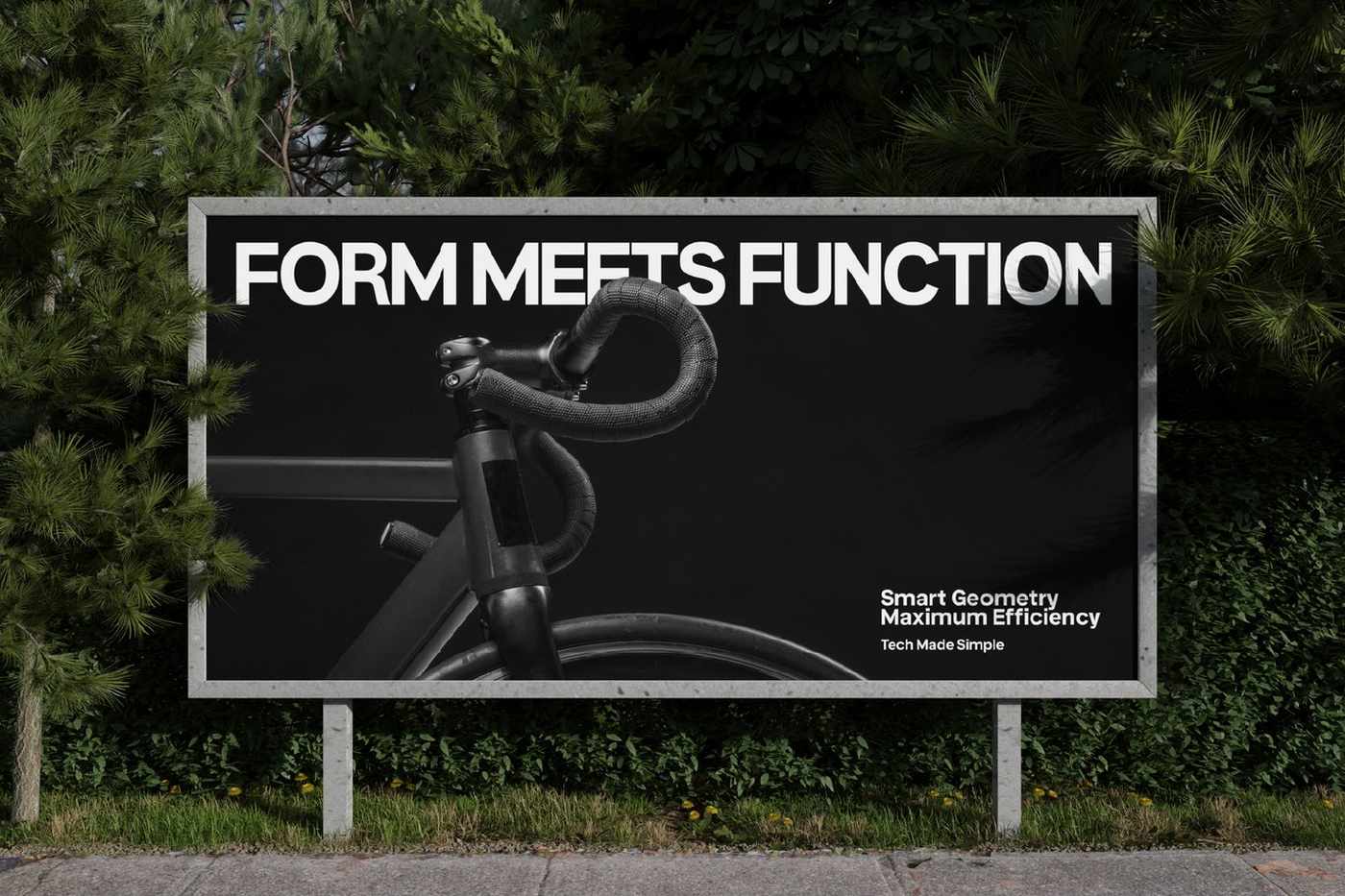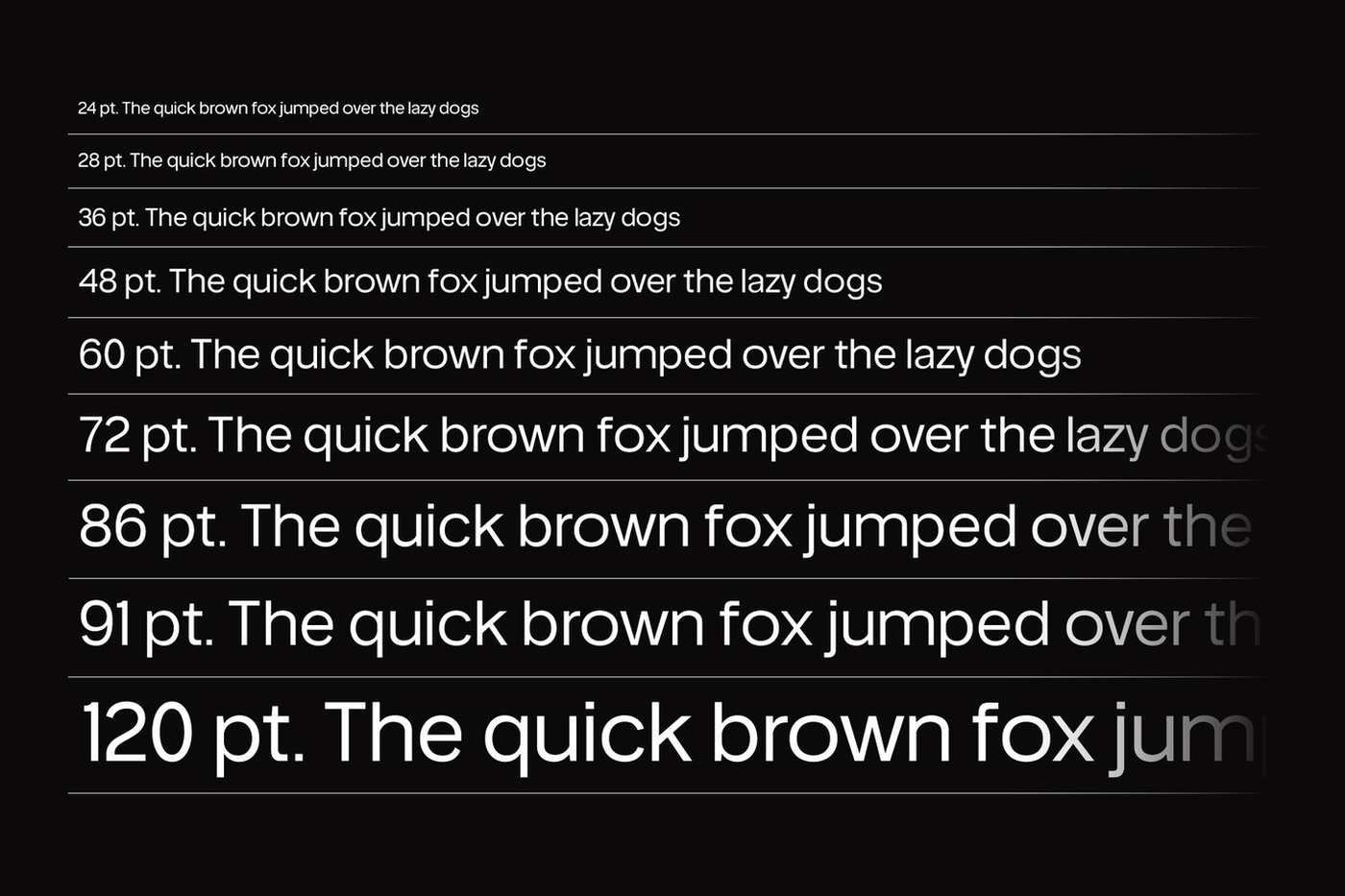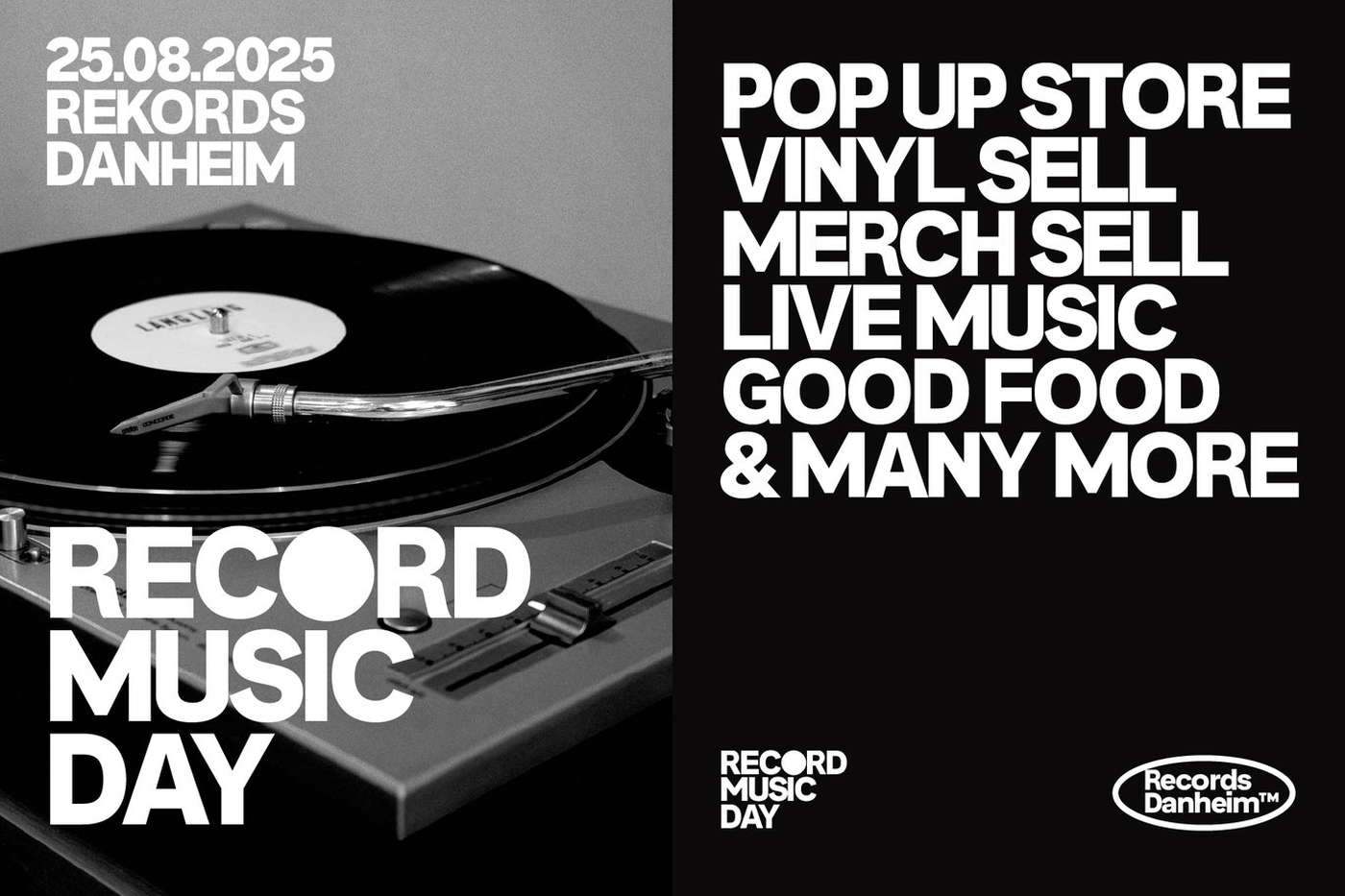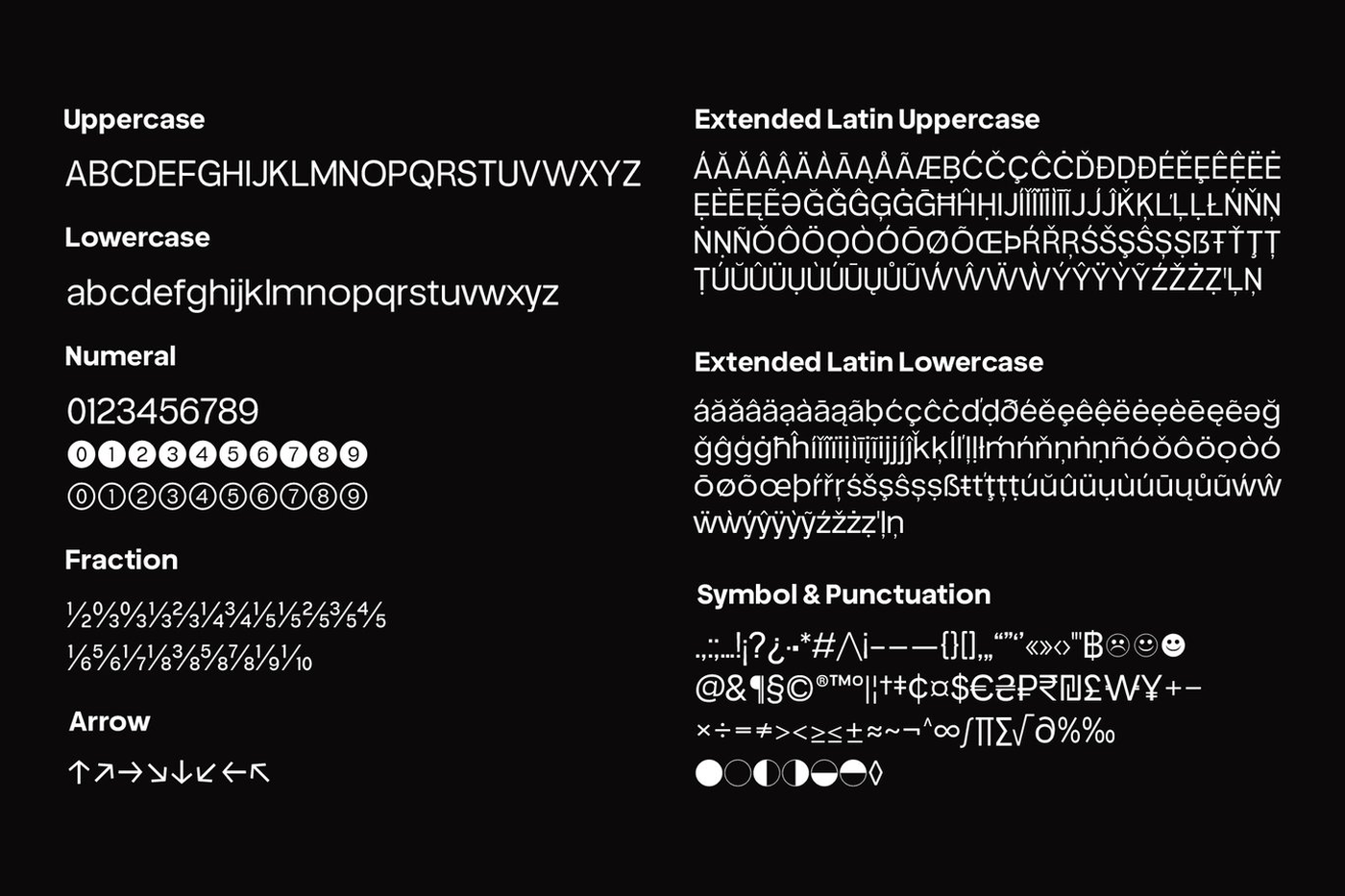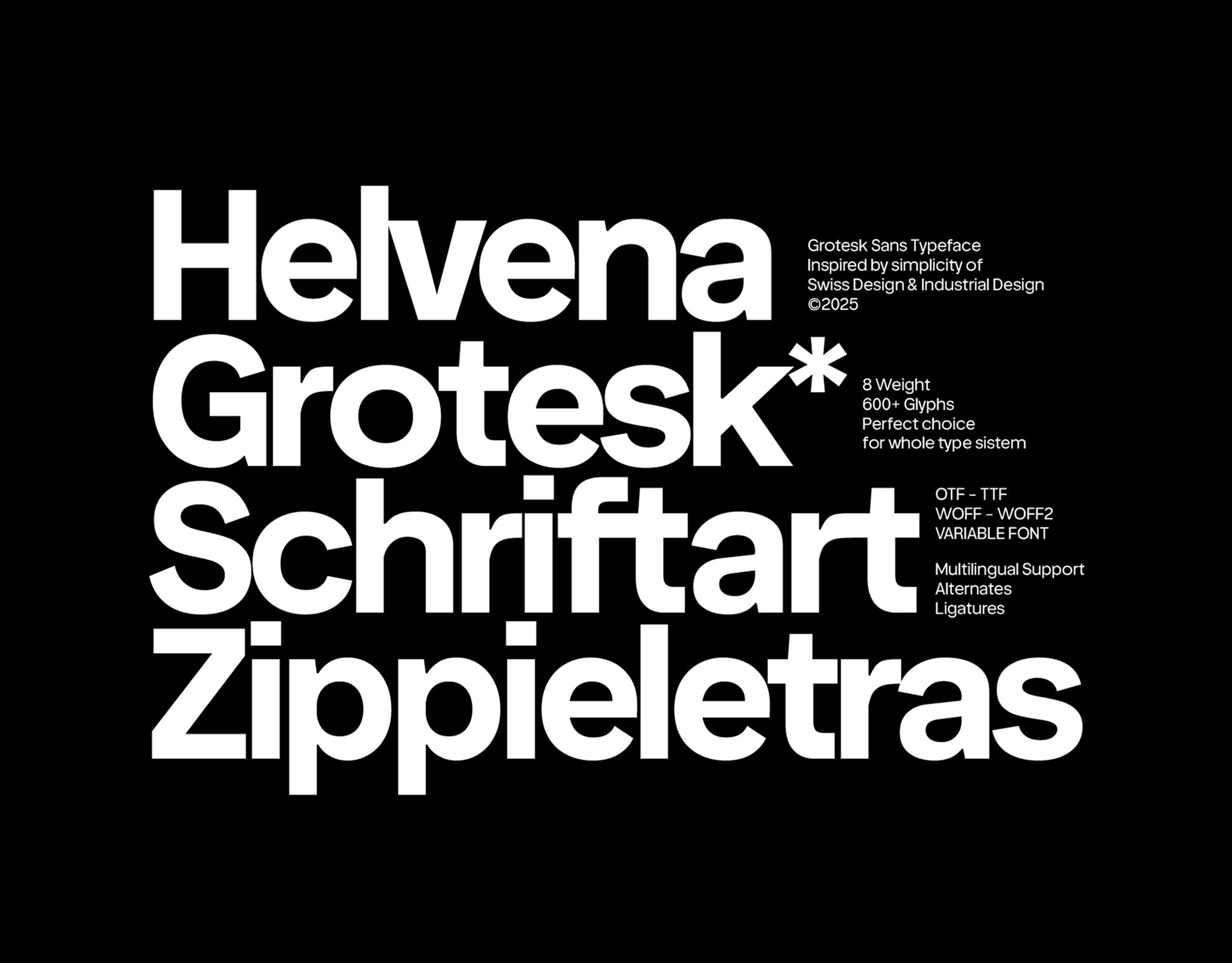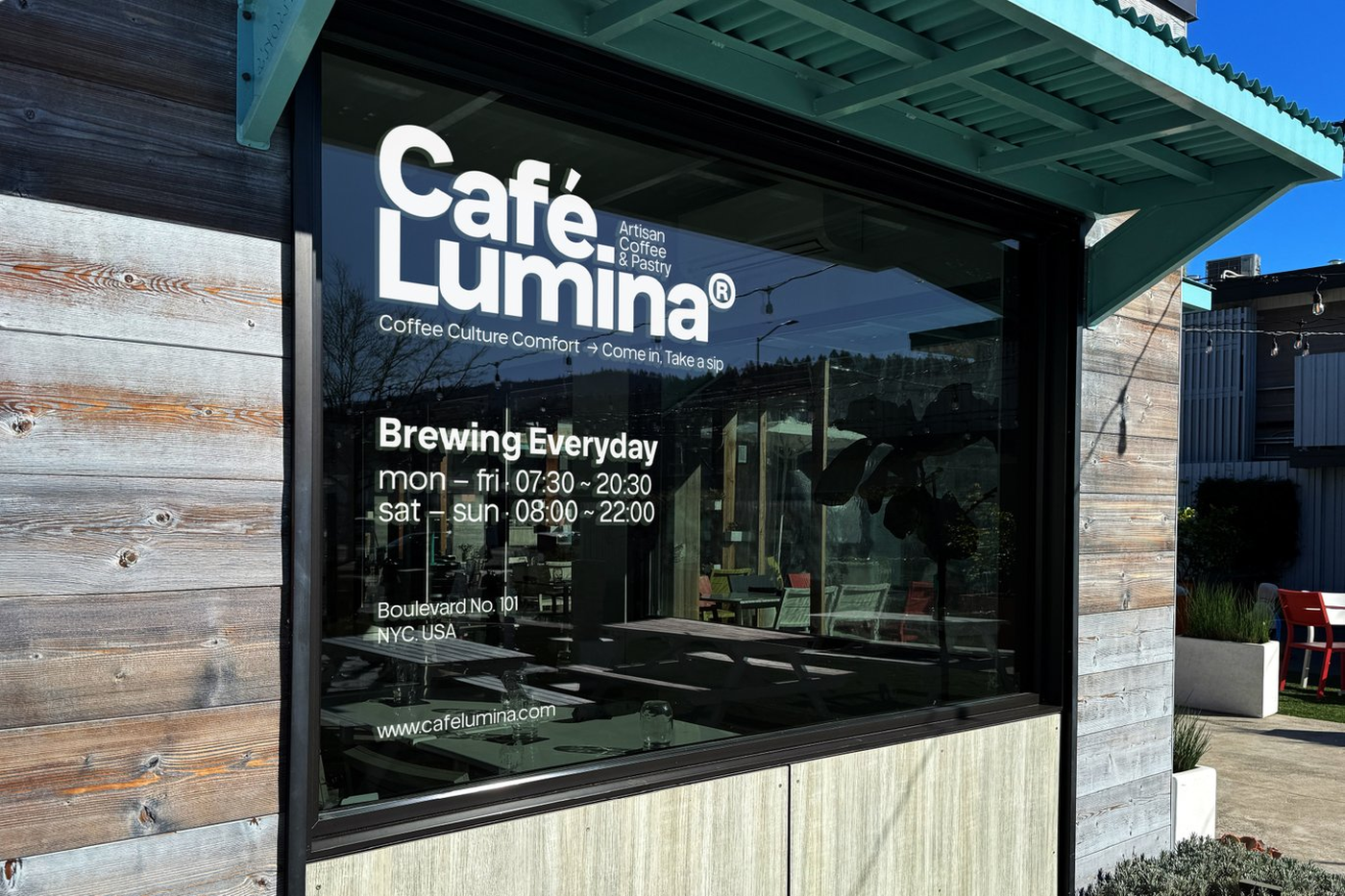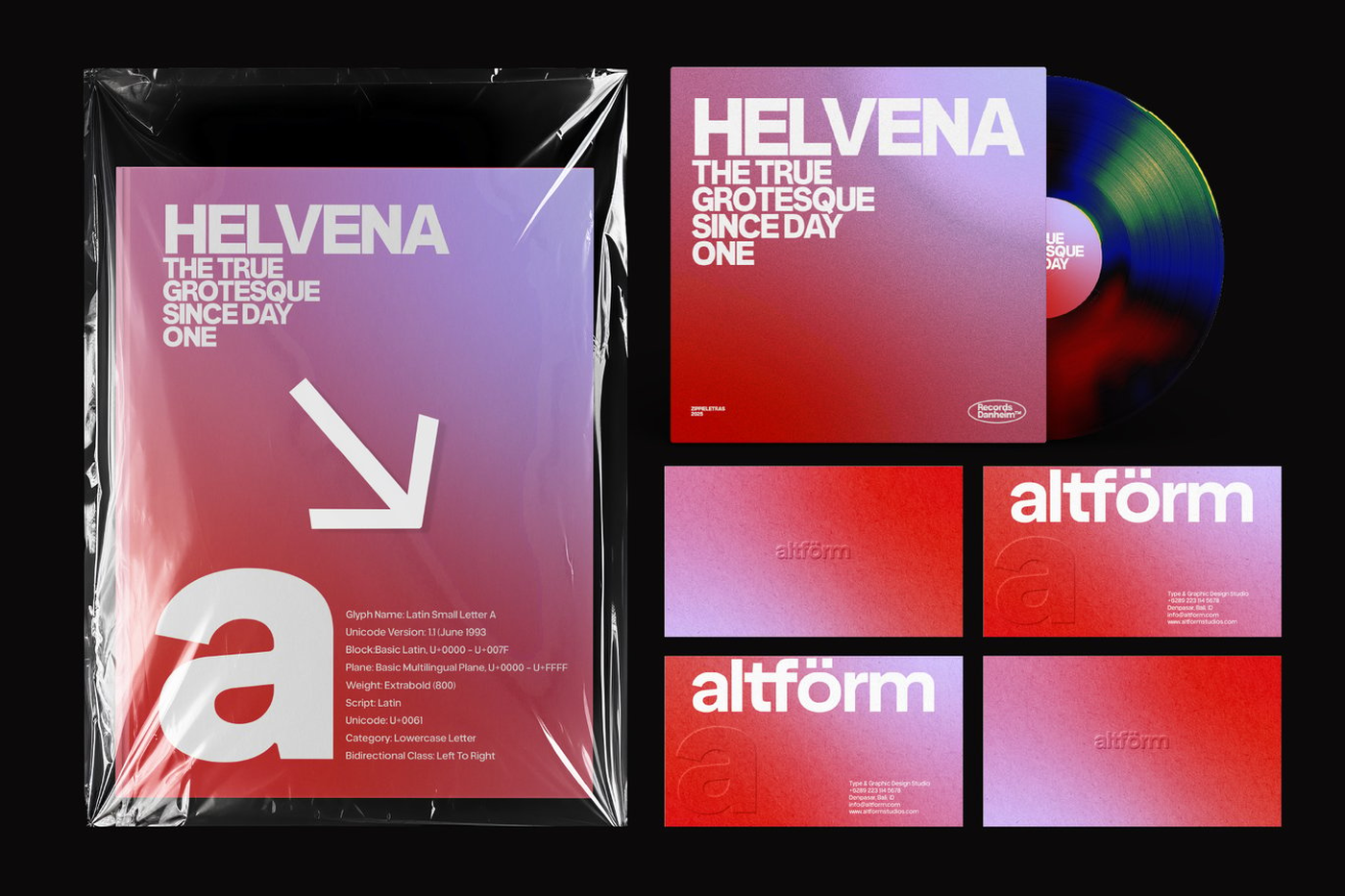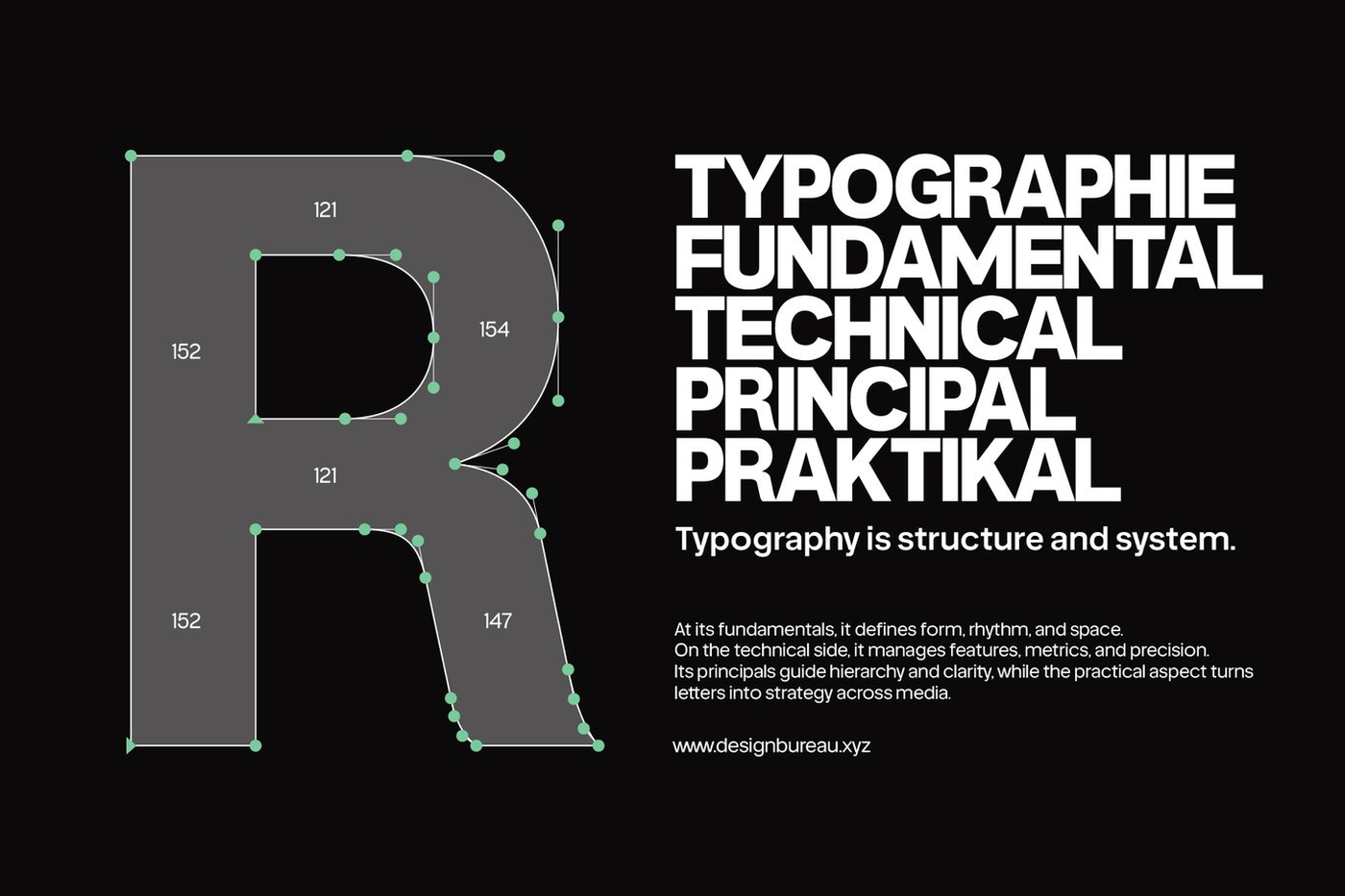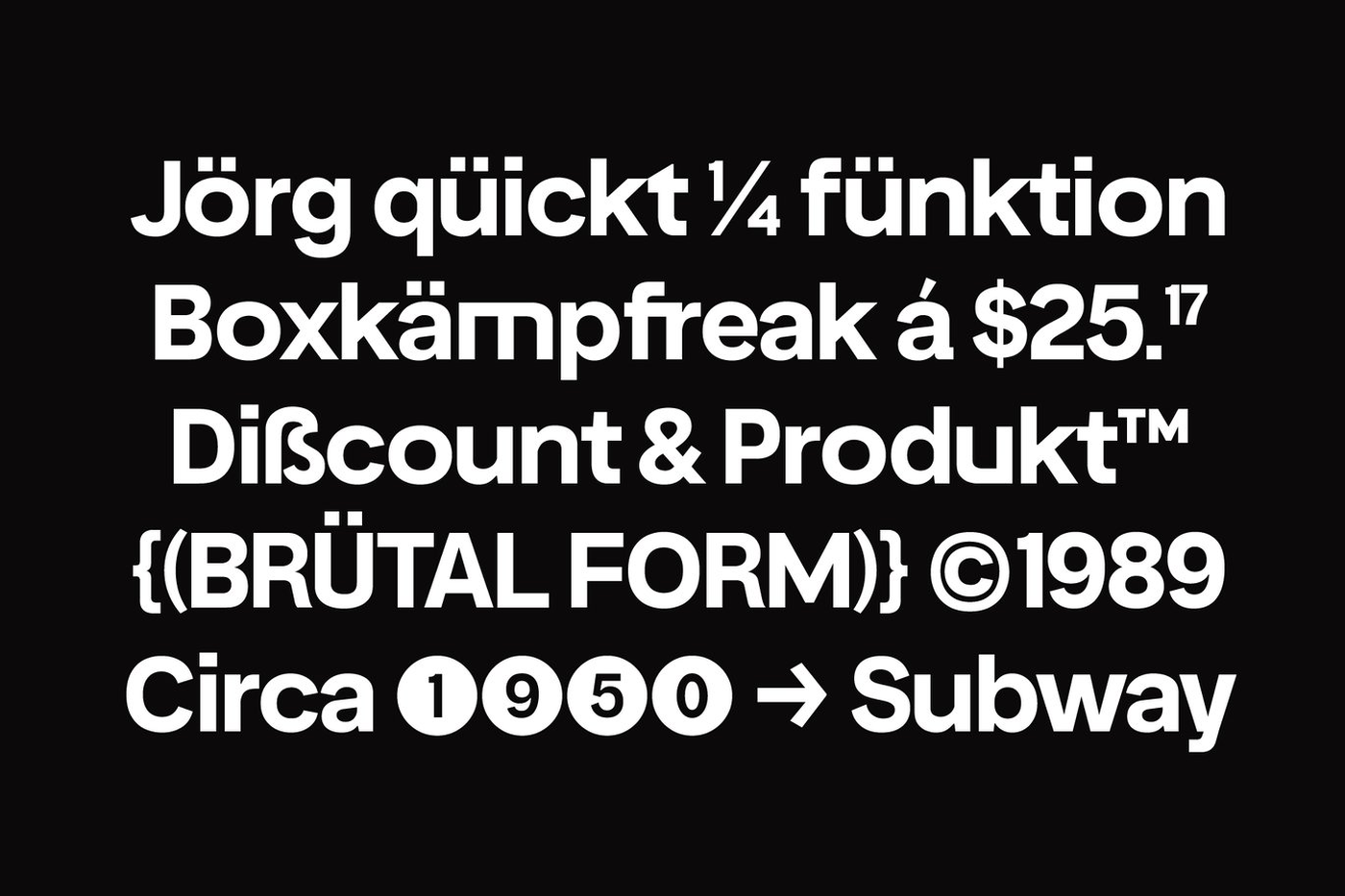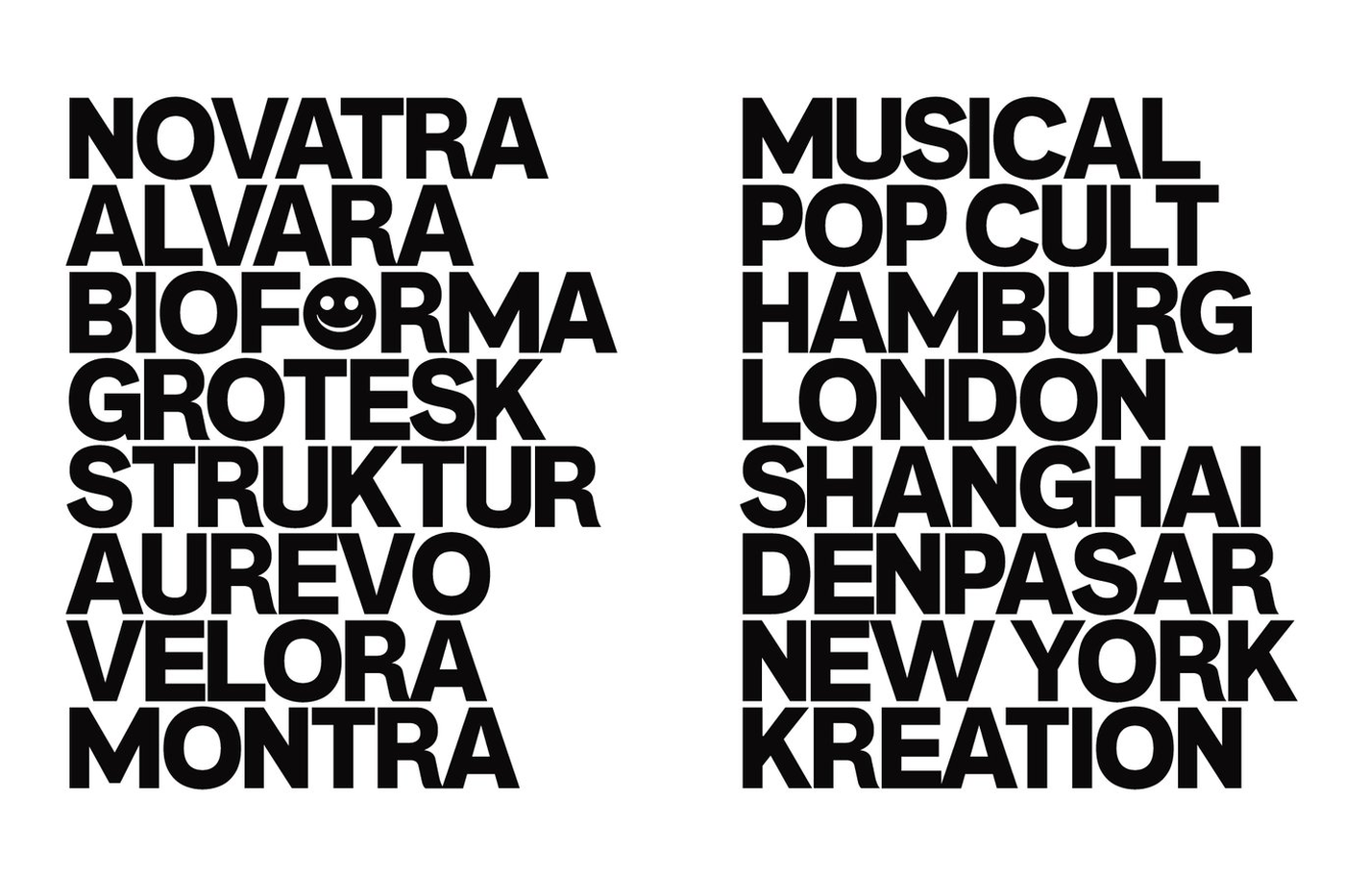
Helvena Grotesk - Modern Bold Font
Helvena is a modern grotesk sans serif crafted for bold branding, brand identity, and editorial design. Inspired by the simplicity of Swiss design and the clarity of functional typography, Helvena delivers a minimalist yet versatile type system that performs beautifully in both display and text applications. Its clean and modern letterforms make it highly adaptable for logos, websites, posters, signage, and brand identity systems. Distinctive details appear in characters like R, M, a, f, g, h, n, m, k, r, t, u, while Stylistic Set 01 (SS01) unlocks sleek alternatives for these shapes, giving designers more flexibility to create unique and modern branding expressions. Smooth ligatures enhance its professional tone, making it suitable for both corporate environments and creative campaigns.